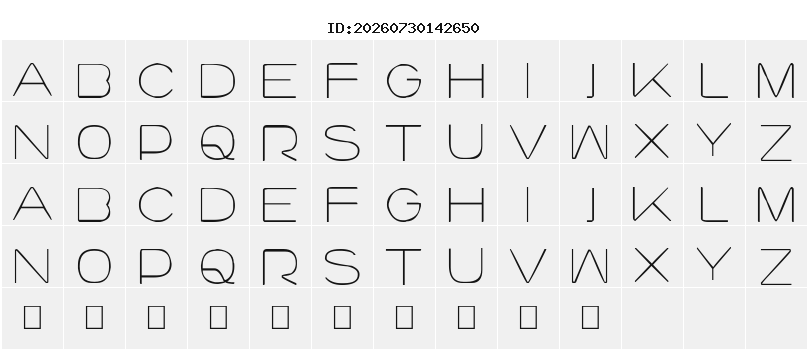
lourod Preview
• Font Name: lourod
• Full Font Name: lourod
• Character Count: 56
About lourod.ttf
lourod.ttf is a modern, elegant sans-serif font designed for ultimate readability and visual harmony. Perfect for branding, headlines, web design, and print materials.